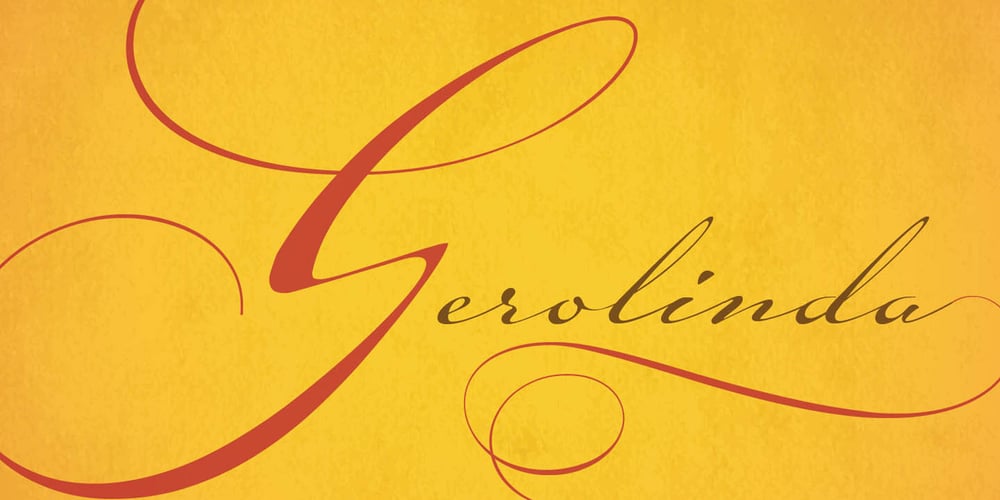
Gerolinda Font Family was designed by Antonio Vignali and published by RM&WD. Gerolinda contains 6 styles and family package options. Gerolinda has almost 1900 glyphs per weight; with its OpenType features it recreates the feeling of a mid-19th century Italian gentlewoman’s handwriting. There are more than 1900 glyphs each weight with 250 variants covering all European accents and a broad choice of numbers: lined, tabular, ordinal, old style, etc. Also ligatures, discretional ligatures, contextual and stylistic alternates, smashes, contestual swashes, stylistic sets and ornaments. (la terminologia la do per buona!) This is a complete font for both editorial and graphic design. Gerolinda font is complemented by Gerolinda Design, dedicated exclusively to upper case letters: around 1,600 glyphs with all the accents. For best results, use of OpenType features is strongly recommend.